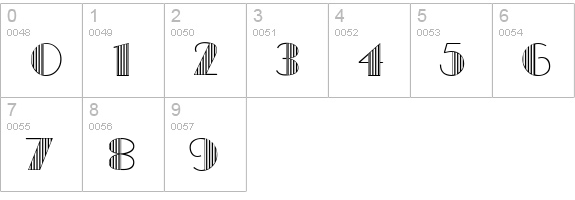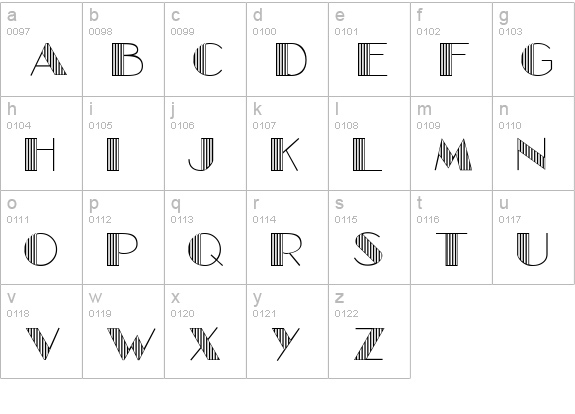
GLitzyVStriped Font Details
Introducing GLitzyVStriped font, a stunning and eye-catching typeface that effortlessly combines glamour and sophistication with a touch of playfulness. This exquisite font features elegant striated patterns that add a unique and luxurious vibe to any design project. The bold and dynamic strokes of GLitzyVStriped font make it perfect for a wide range of creative applications, from branding and advertising to invitations and social media graphics. And the best part? GLitzyVStriped font is available for free download at FontsMarket.com! Embrace the beauty and versatility of this captivating font without any cost, and elevate your designs with a touch of glamour and style. Don't miss out on this incredible opportunity to enhance your projects with the exquisite GLitzyVStriped font – download it now and let your creativity shine!